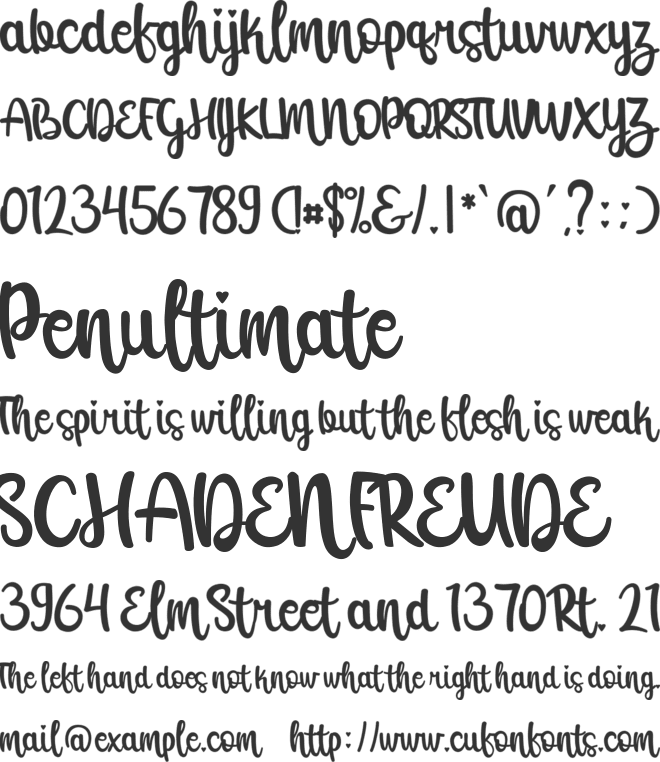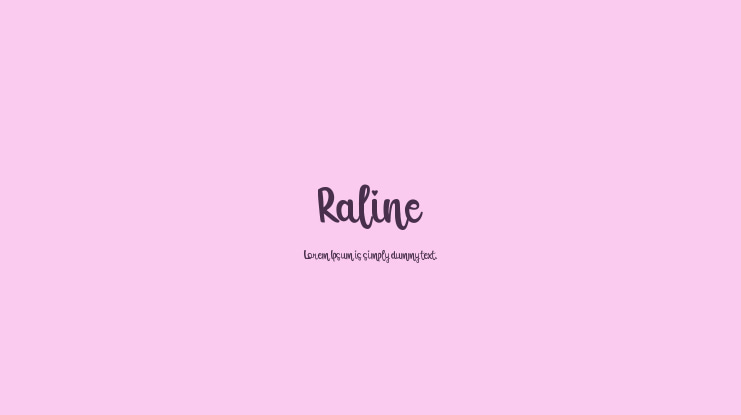
Raline Font
Raline a new calligraphy modern script style, decorative characters and a dancing baseline! So beautiful on perfect invitation like logo, invitation, stationery, wedding designs, social media posts, advertisements, product packaging, product designs, label, photography, watermark, special events,greeting cards, branding materials, business cards, quotes, posters, and more!!
come with 388 glyphs. The alternative characters were divided into several Open Type features such as Stylistic Sets, Stylistic Alternates. The Open Type features can be accessed by using Open Type savvy programs such as Adobe Illustrator, Adobe InDesign, Adobe Photoshop Corel Draw X version, And Microsoft Word. And this Font has given . so that all the alternate characters can easily be accessed in full by a craftsman or designer.